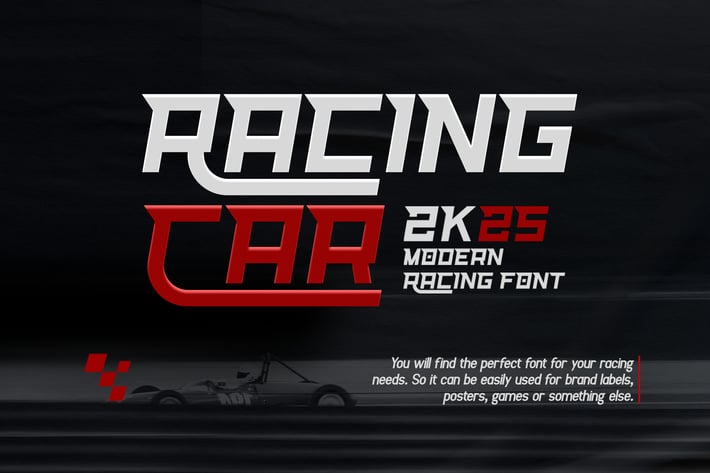
Racing Car - Modern Racing Font
Introducing "Racing Car," a modern racing font designed to bring the thrill of the racetrack to your designs. Perfect for graphic designers, typographers, and creatives looking to infuse their projects with dynamic energy and bold aesthetics, Racing Car offers a sleek and aggressive style ideal for a wide range of applications.
Ideal for automotive branding, sports advertising, dynamic posters, bold logos, and eye-catching headlines, Racing Car’s sharp and streamlined characters convey a sense of motion and speed. Each letter is meticulously crafted to ensure exceptional readability while maintaining a striking and contemporary appearance, making your designs both powerful and engaging.
The "Racing Car" font includes a complete set of uppercase and lowercase letters, numbers, punctuation marks, and special characters. This versatile set allows for seamless integration into various design applications, from high-energy branding to impactful advertising campaigns.
Accelerate your designs with Racing Car, the modern racing font that brings speed and style to every letter.